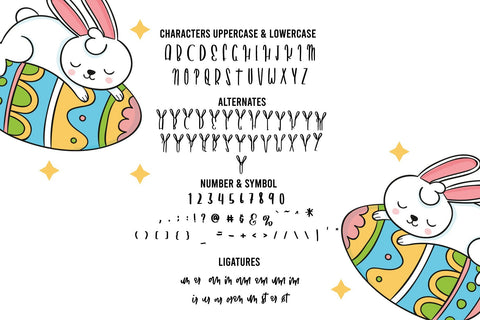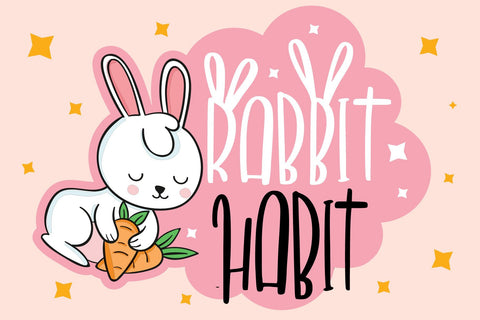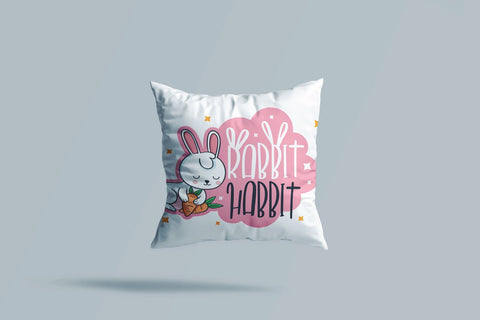
Rabbit Habit Font
un and cute display font that fits perfectly into anything. Its casual charm makes it look very down to earth, easy to read and, in the end, very versatile.Add this beautiful display font to your every creative idea.
This font is perfect for quotes, shirt designs, websites, branding, children’s , easter, designs, blogs, logos, invitations and more!